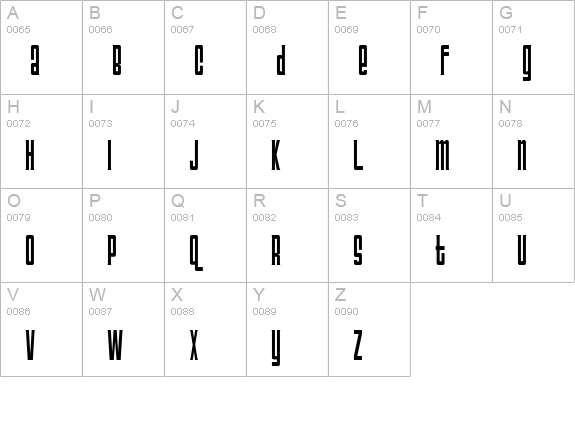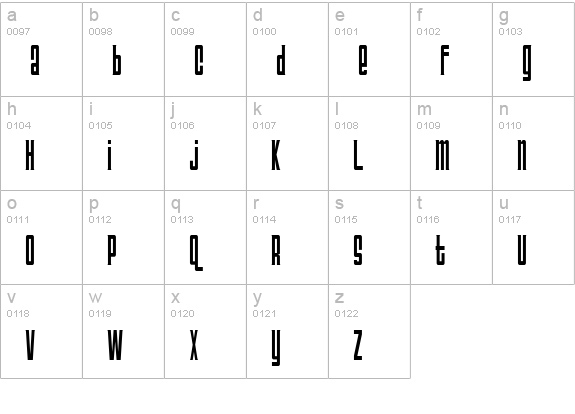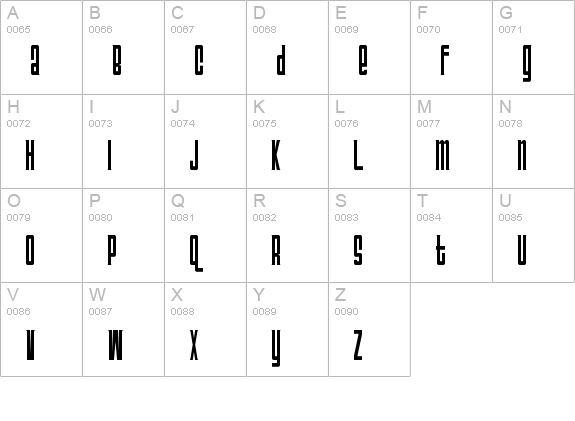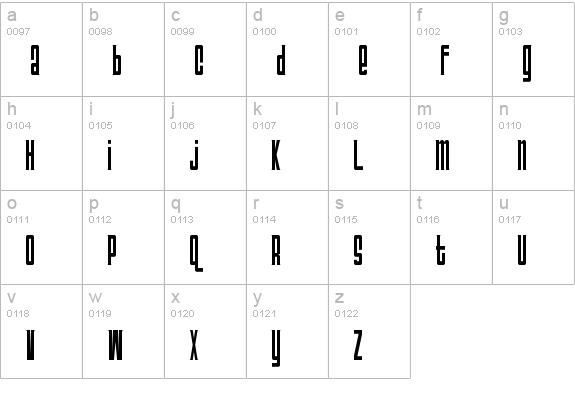
Triac 71 Font Details
Triac 71 is a stunning display font that exudes elegance and sophistication. Its sleek and modern design is perfect for adding a touch of class to any project. With its sharp edges and clean lines, Triac 71 commands attention and leaves a lasting impression. This versatile font is ideal for a wide range of applications, from branding and logos to headlines and titles. Its unique letterforms make it stand out and give it a distinctive and memorable look. Whether you're designing a sleek magazine layout or creating eye-catching social media graphics, Triac 71 is sure to elevate your designs to the next level. One of the best features of Triac 71 is that it is free to download at FontsMarket.com. This means that you can enjoy the beauty and versatility of this font without having to spend a penny. It's a fantastic opportunity to enhance your design projects with a high-quality font that won't break the bank. Not only is Triac 71 visually stunning, but it is also incredibly easy to work with. Its clean and well-balanced letterforms ensure legibility at any size, making it a perfect choice for both print and digital designs. With Triac 71, you can create professional-looking visuals that make a strong impact on your audience. In conclusion, Triac 71 is a must-have font for anyone looking to add a touch of elegance and class to their designs. Its sleek and modern design, combined with its versatility and ease of use, make it a valuable asset in any designer's toolkit. And the best part? It's freely available to download at FontsMarket.com. So why wait? Start using Triac 71 today and take your designs to new heights.